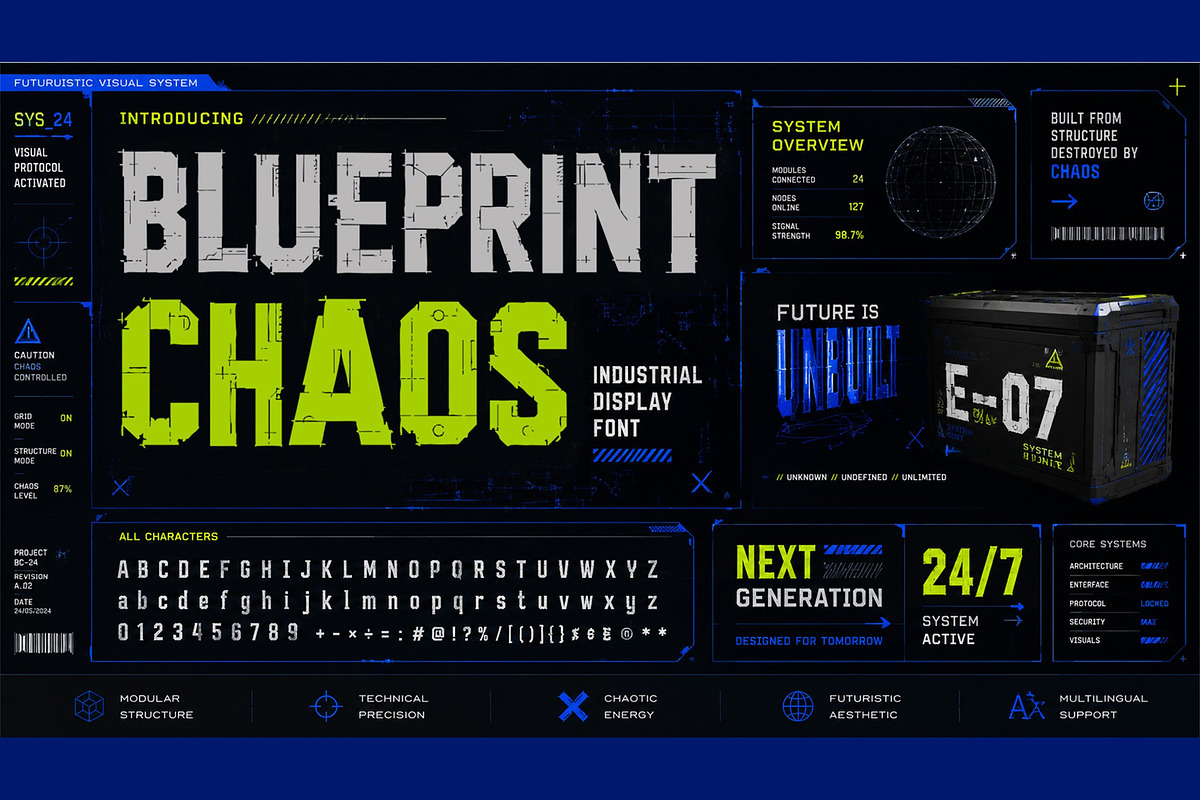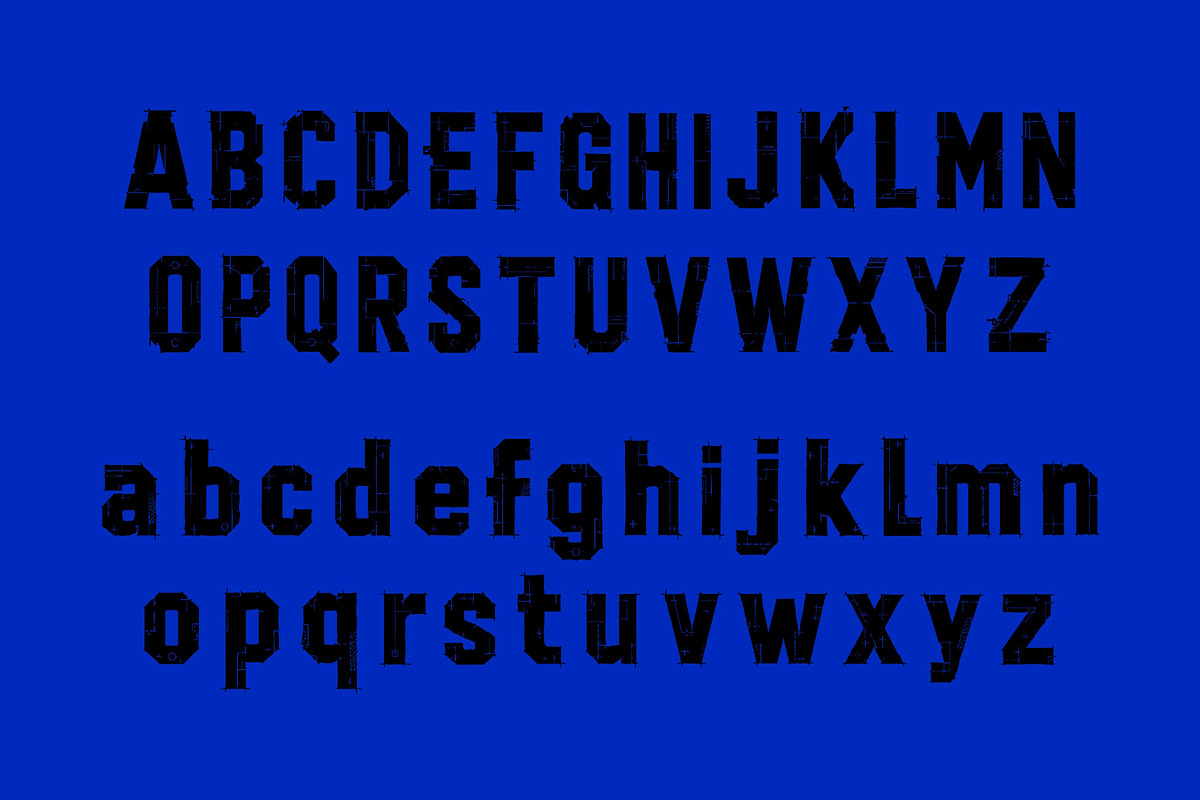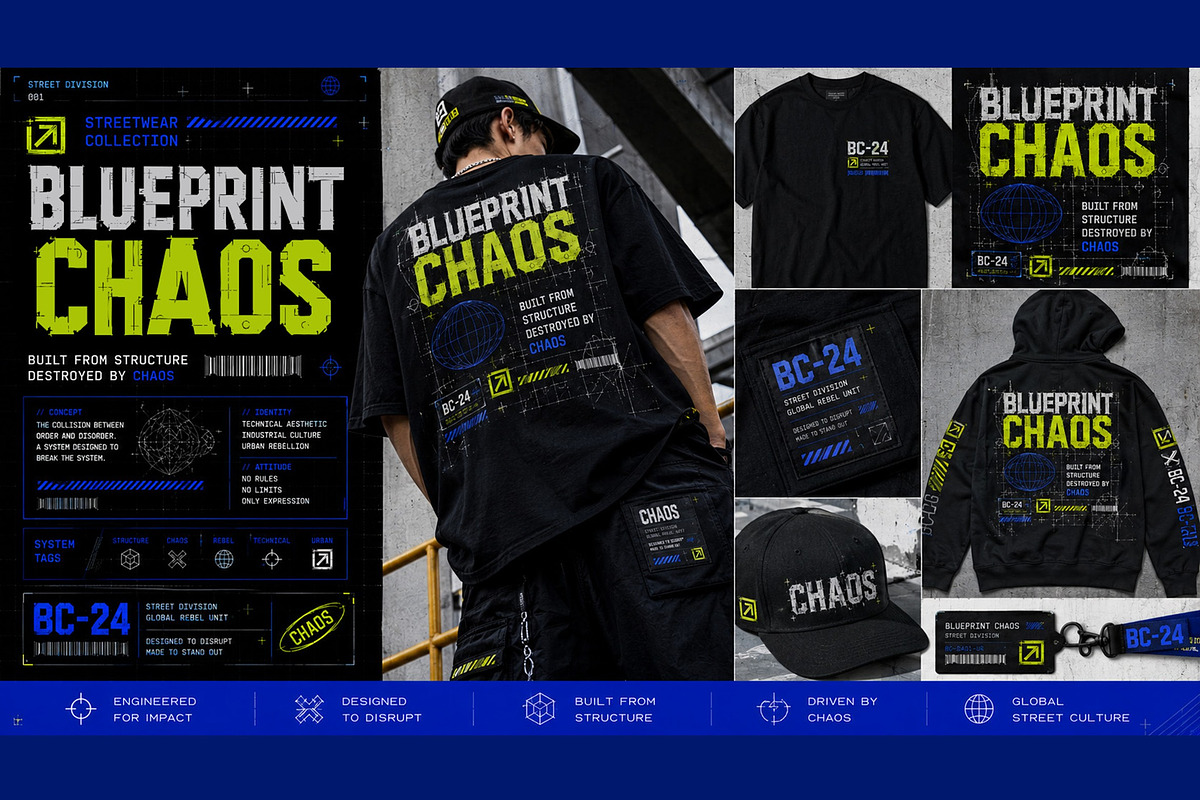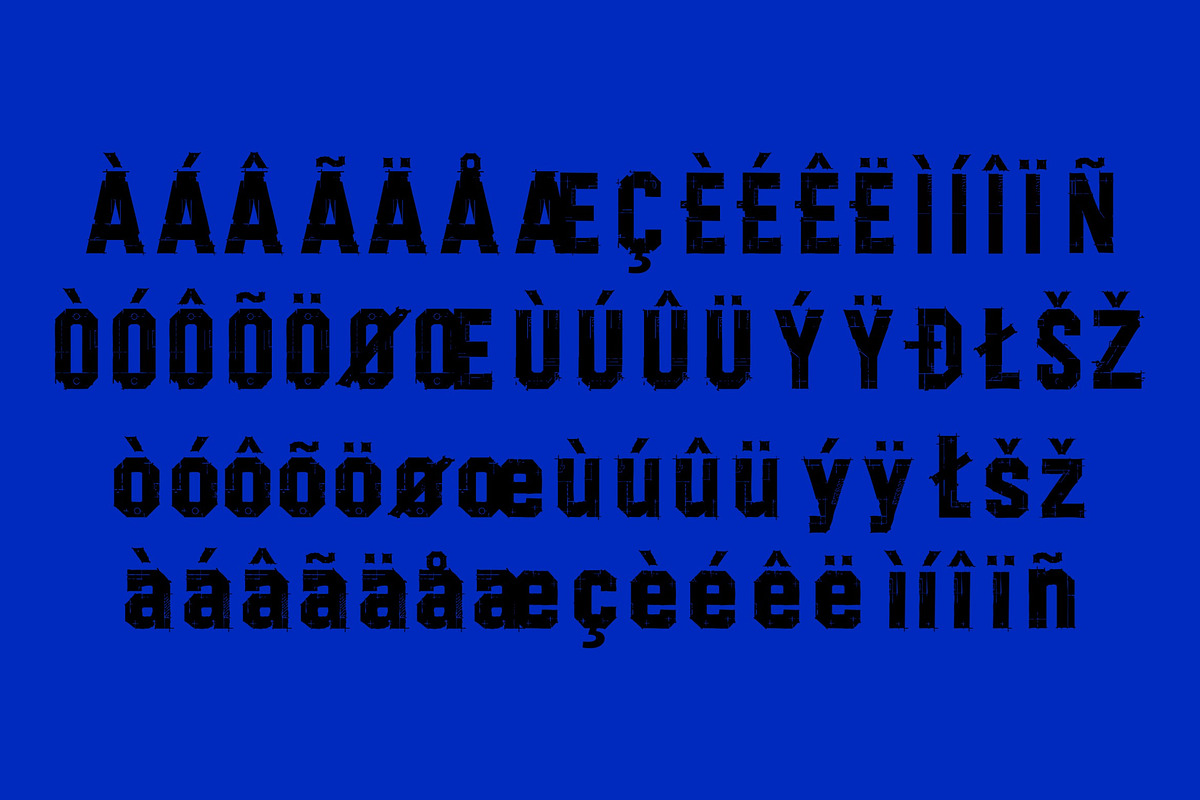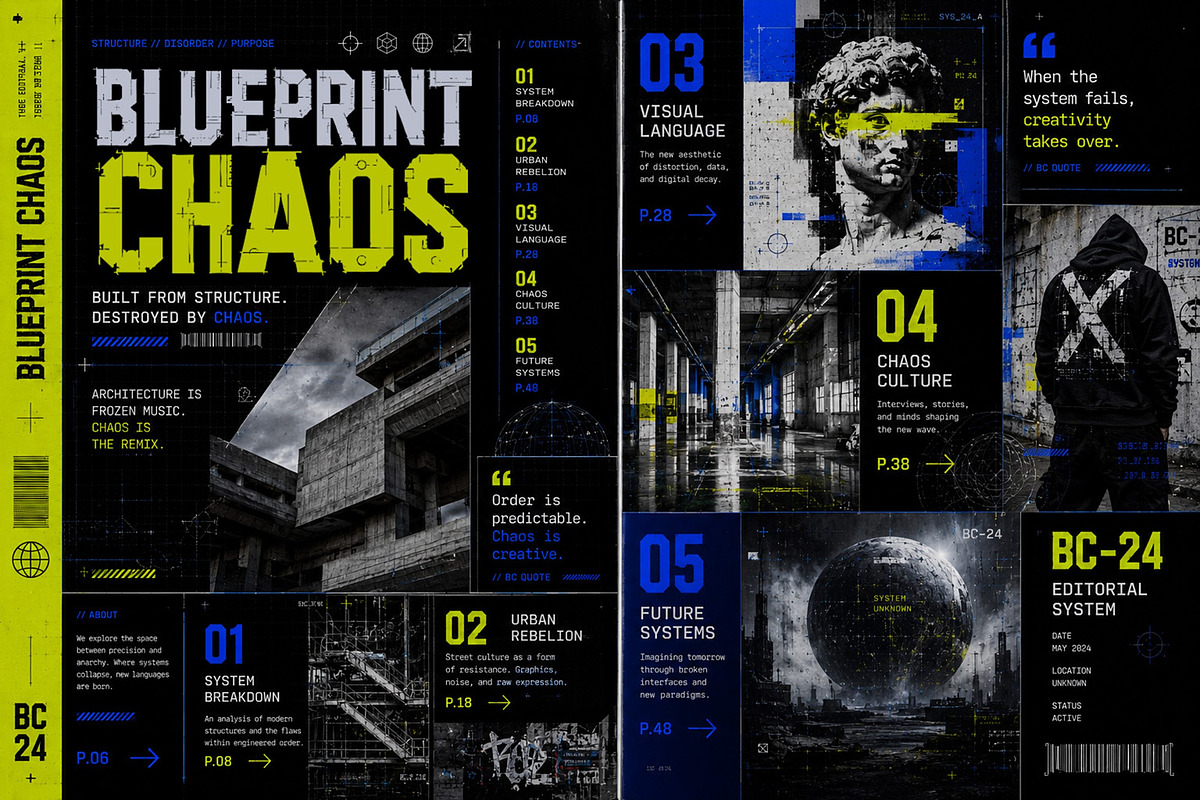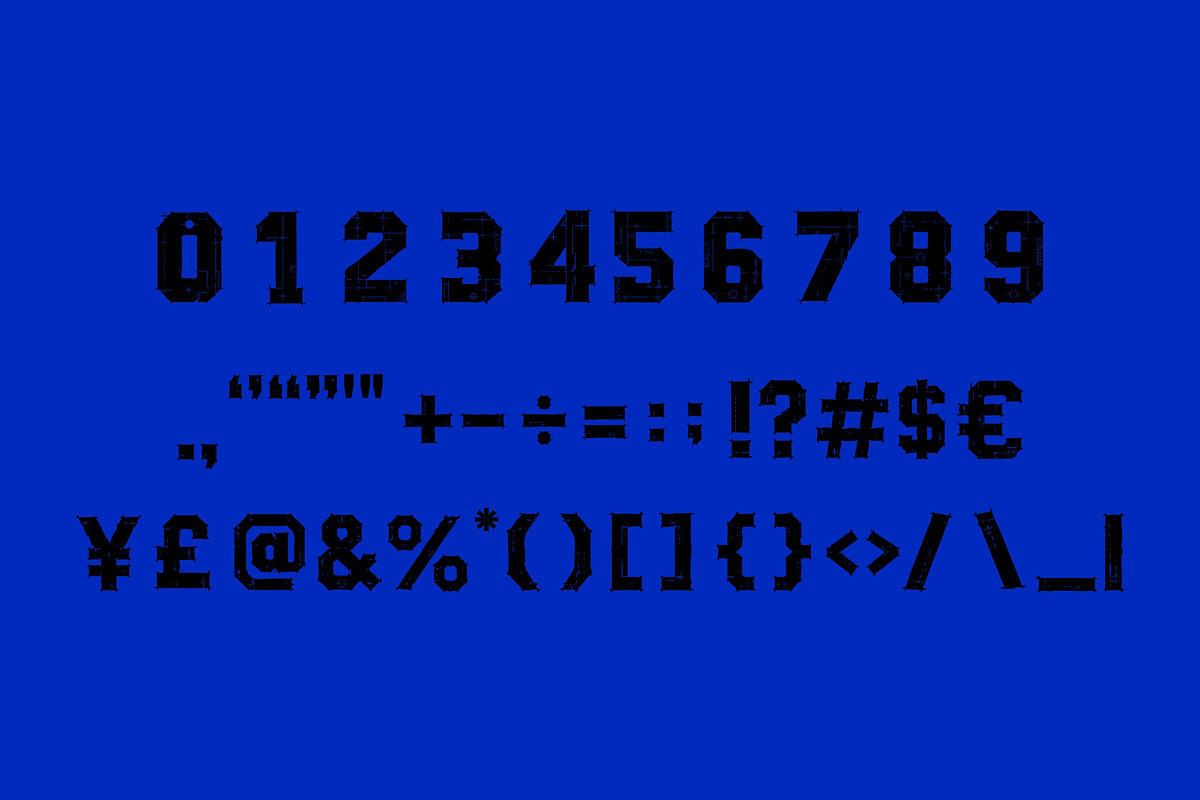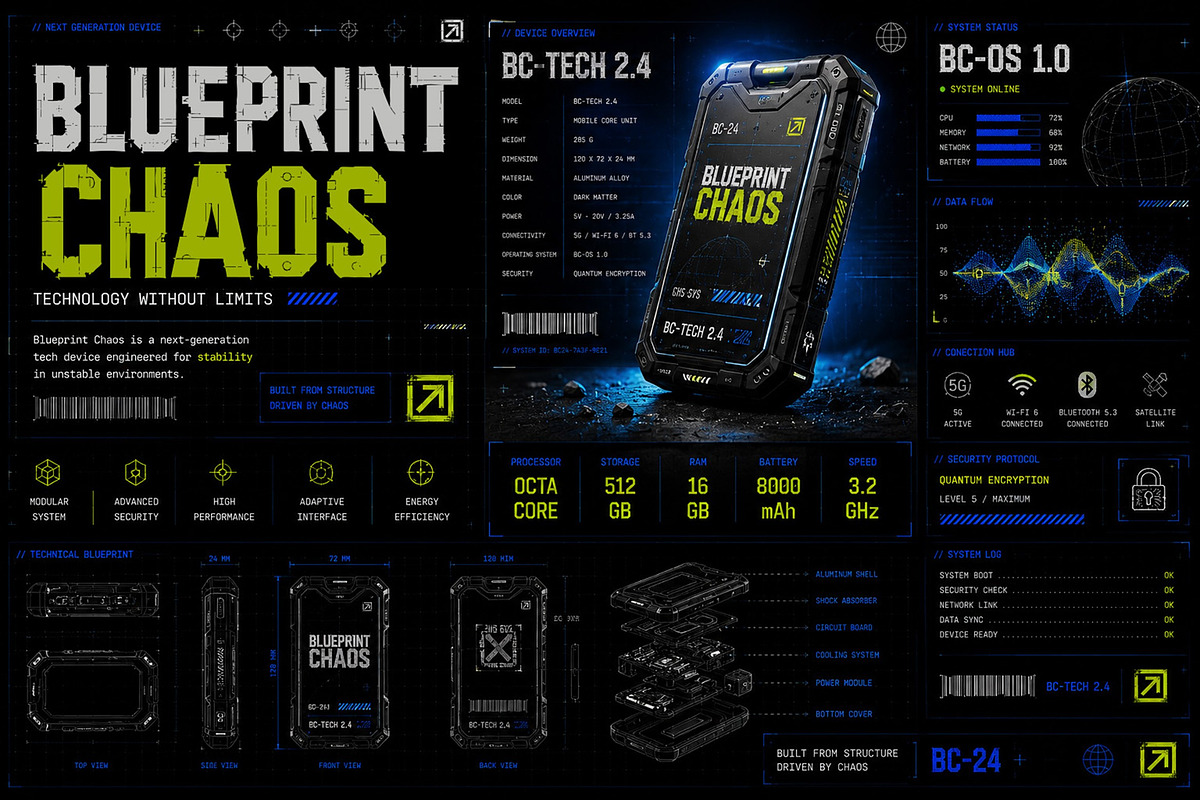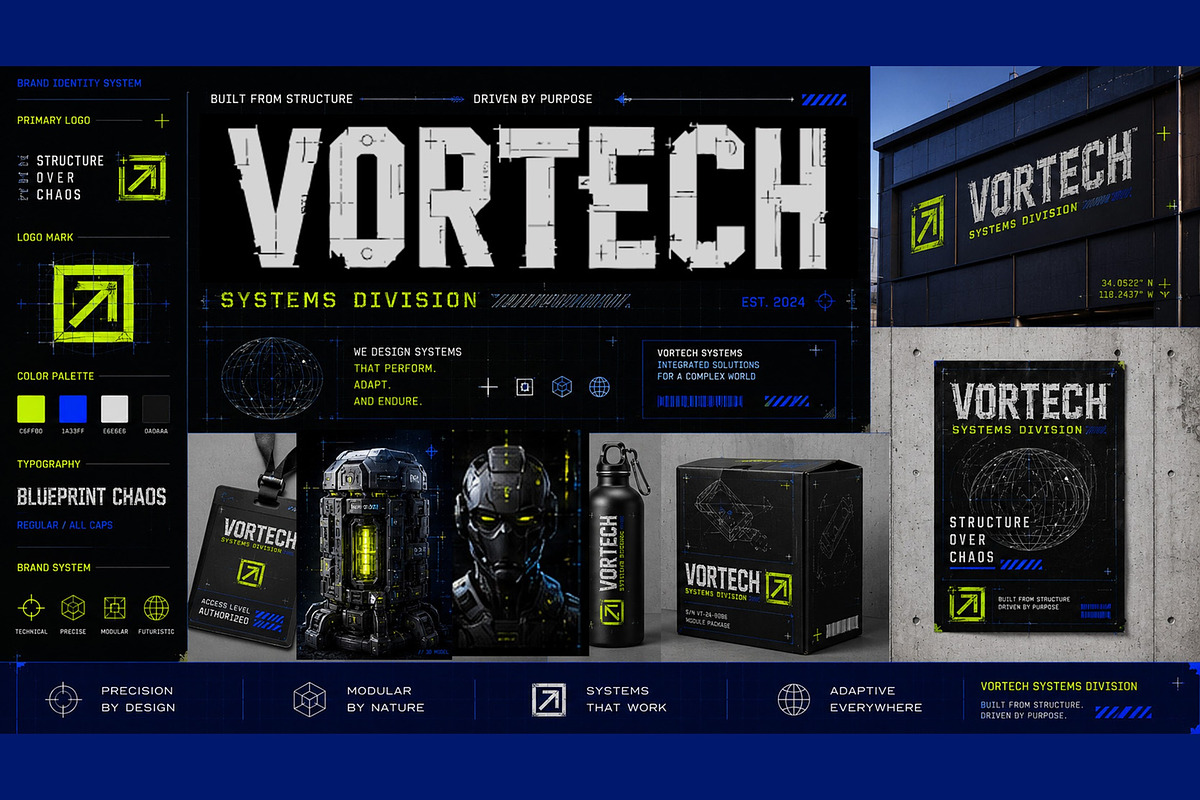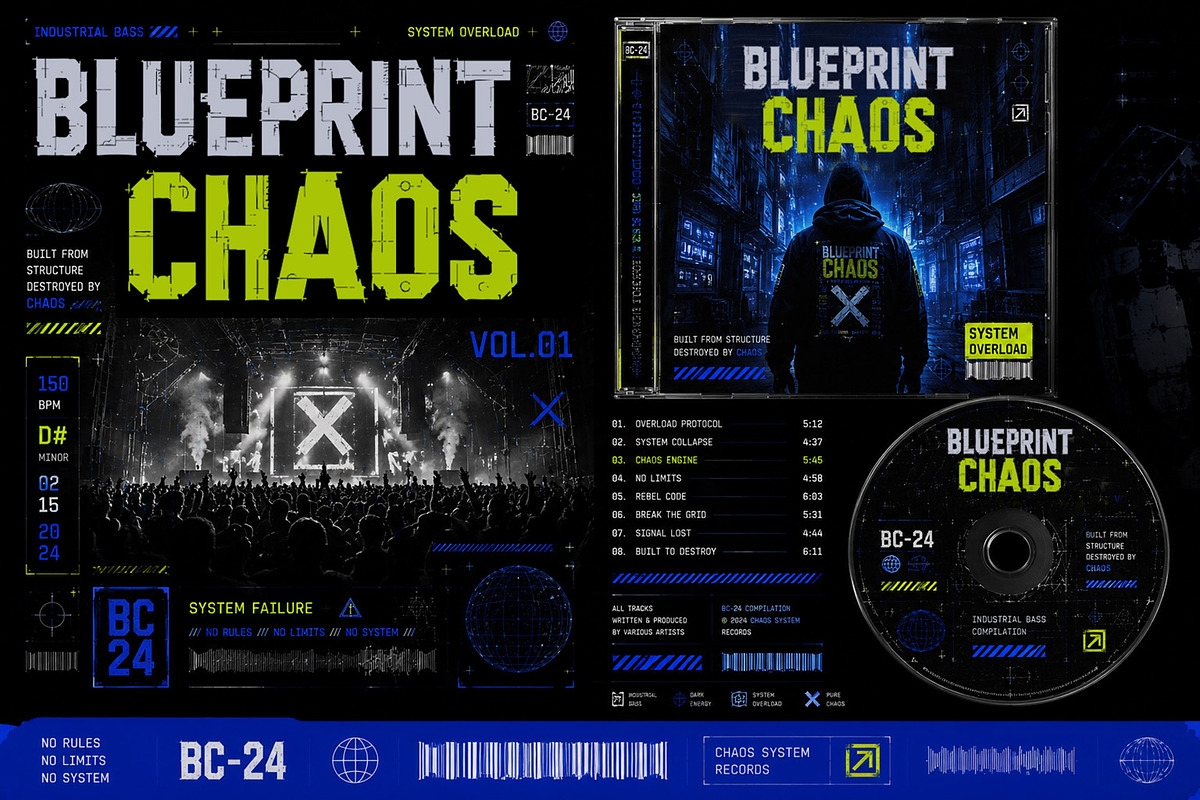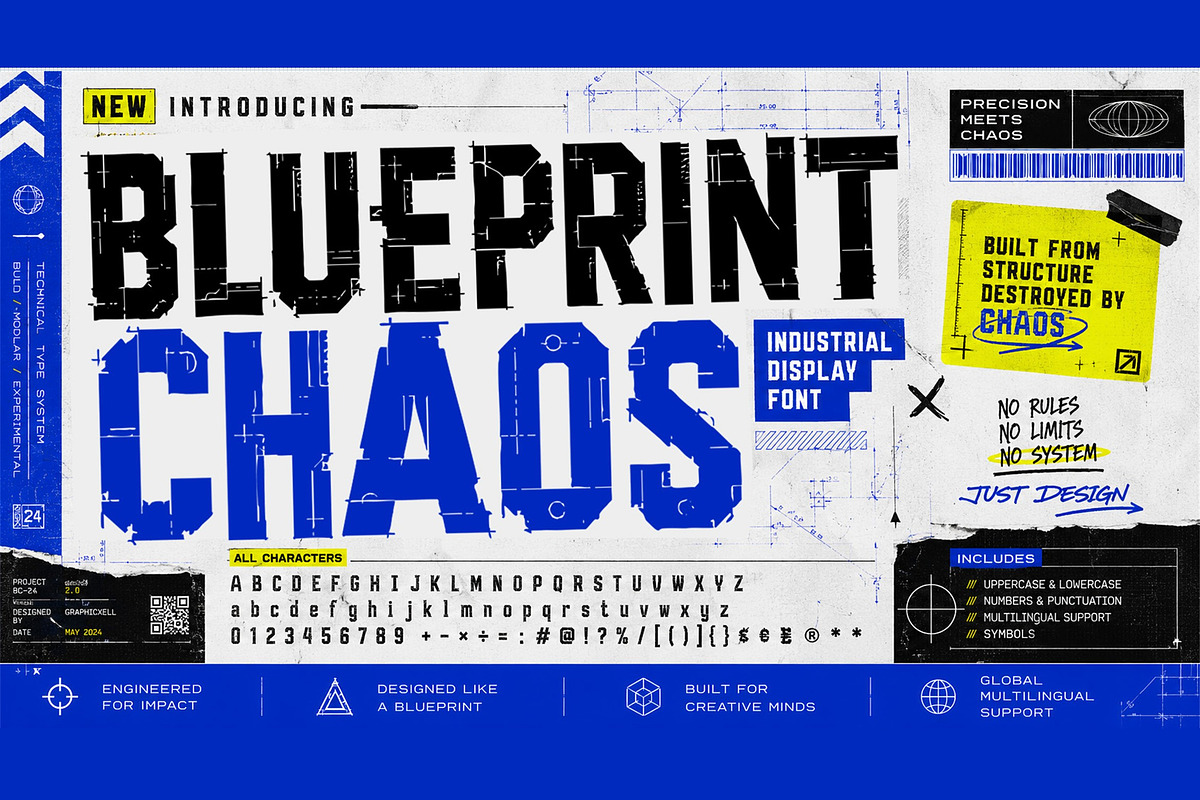
Blueprint Chaos
Blueprint Chaos is a bold industrial display font inspired by architectural blueprints, technical schematics, and controlled visual disorder. Combining geometric construction, modular forms, and engineered imperfections, this typeface creates a powerful balance between precision and chaos. Perfect for creative branding, packaging, editorial design, music artwork, and futuristic visual systems.